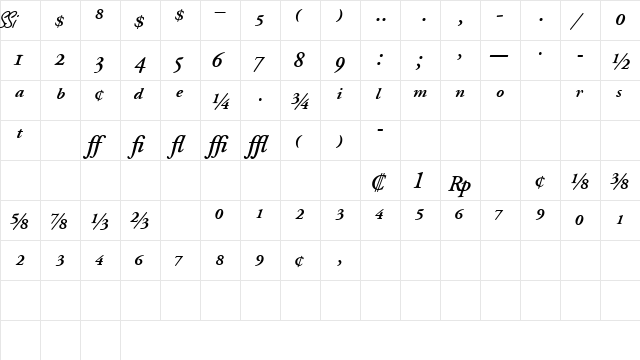
GaramondProSSK SemiBoldItalic Font Preview
Design Context for GaramondProSSK Typeface
GaramondProSSK offers clean, dependable letterforms without strong stylistic allegiance, making it a practical choice for designers who need flexibility. The dynamic lean of this cut emphasises speed and emphasis in any layout. Its bold stroke weight gives it real presence on the page.